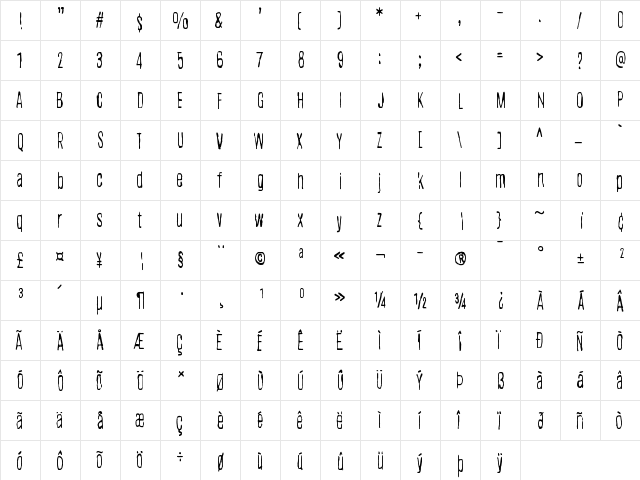
Dog Fox Zebra Regular
Design Context for Dog Fox Zebra Typeface
Dog Fox Zebra is a composed and adaptable typeface that performs quietly and consistently across a wide range of design contexts.